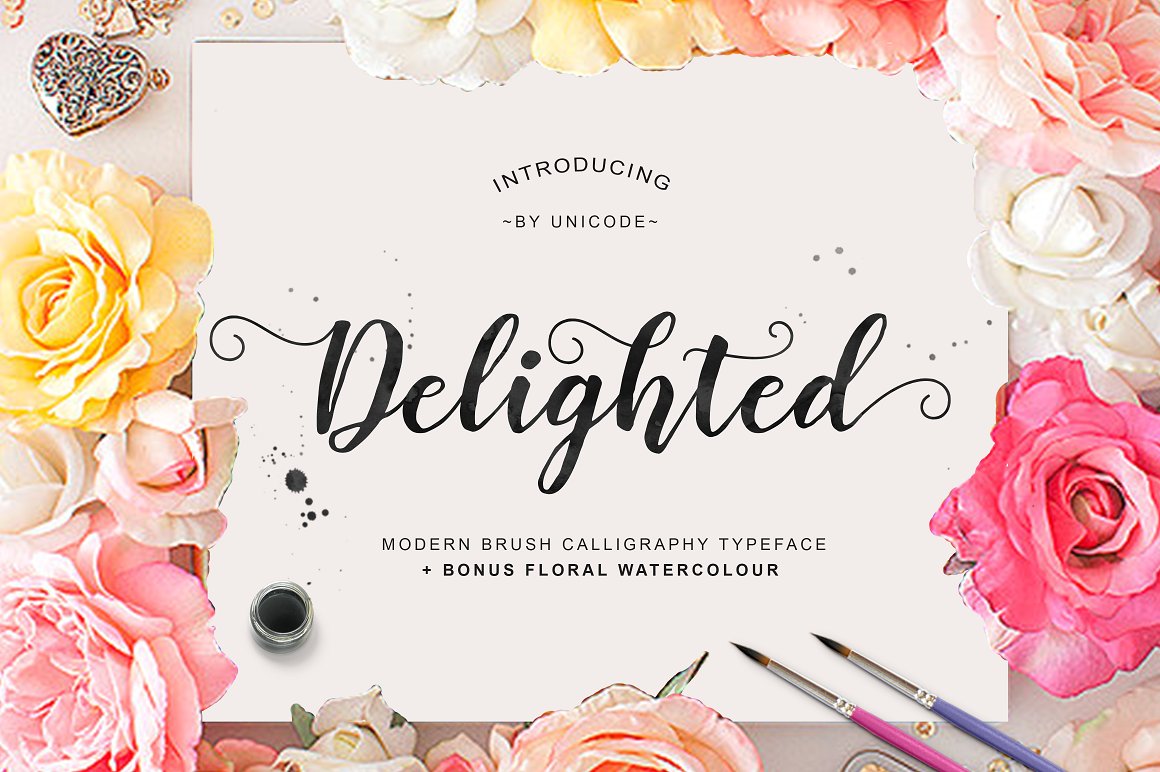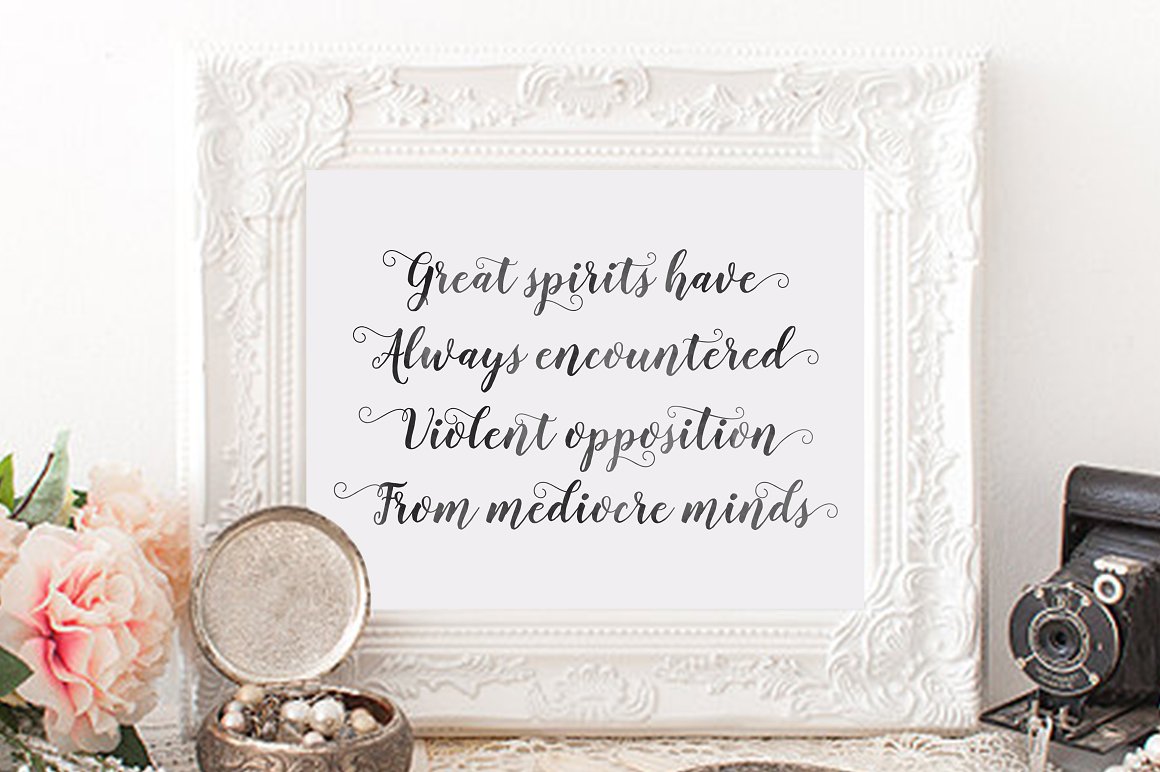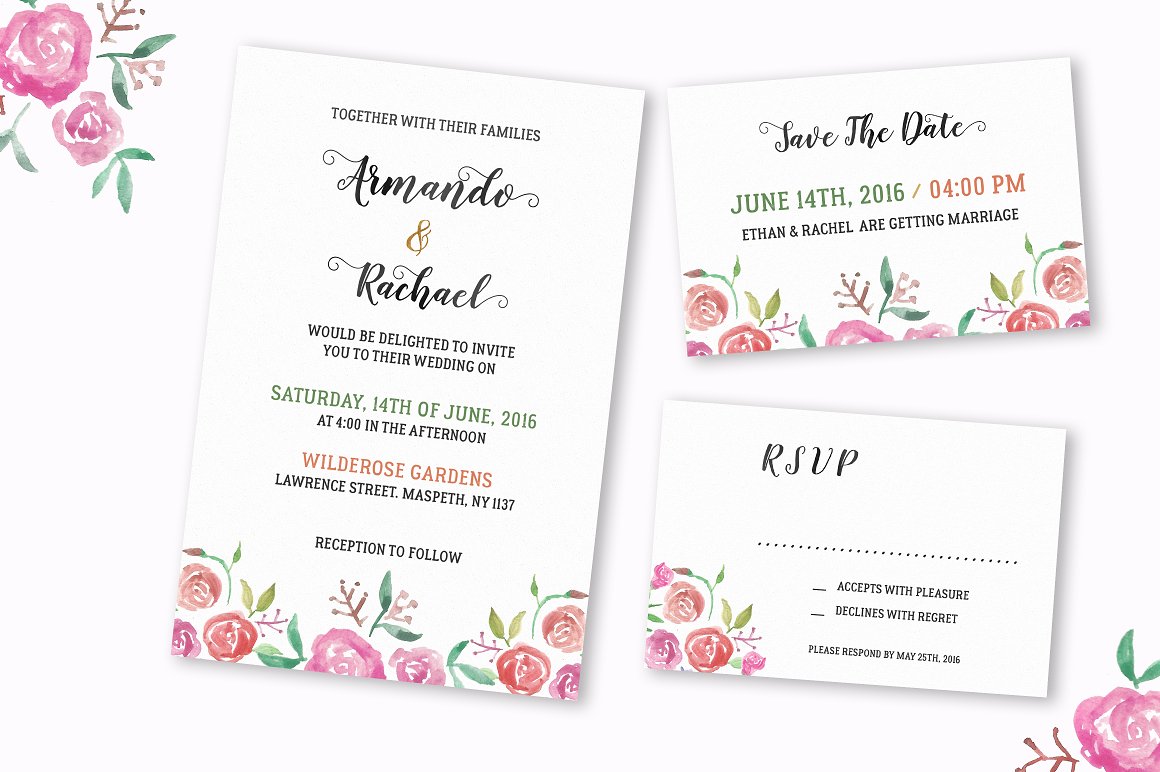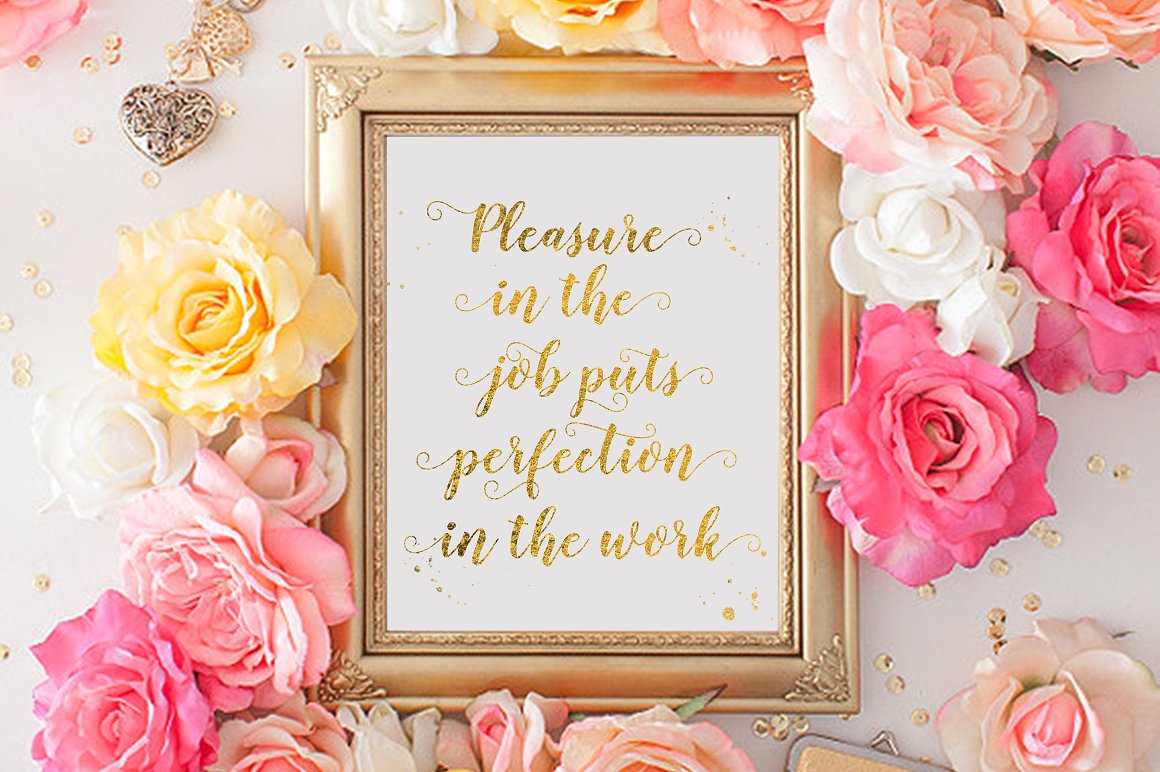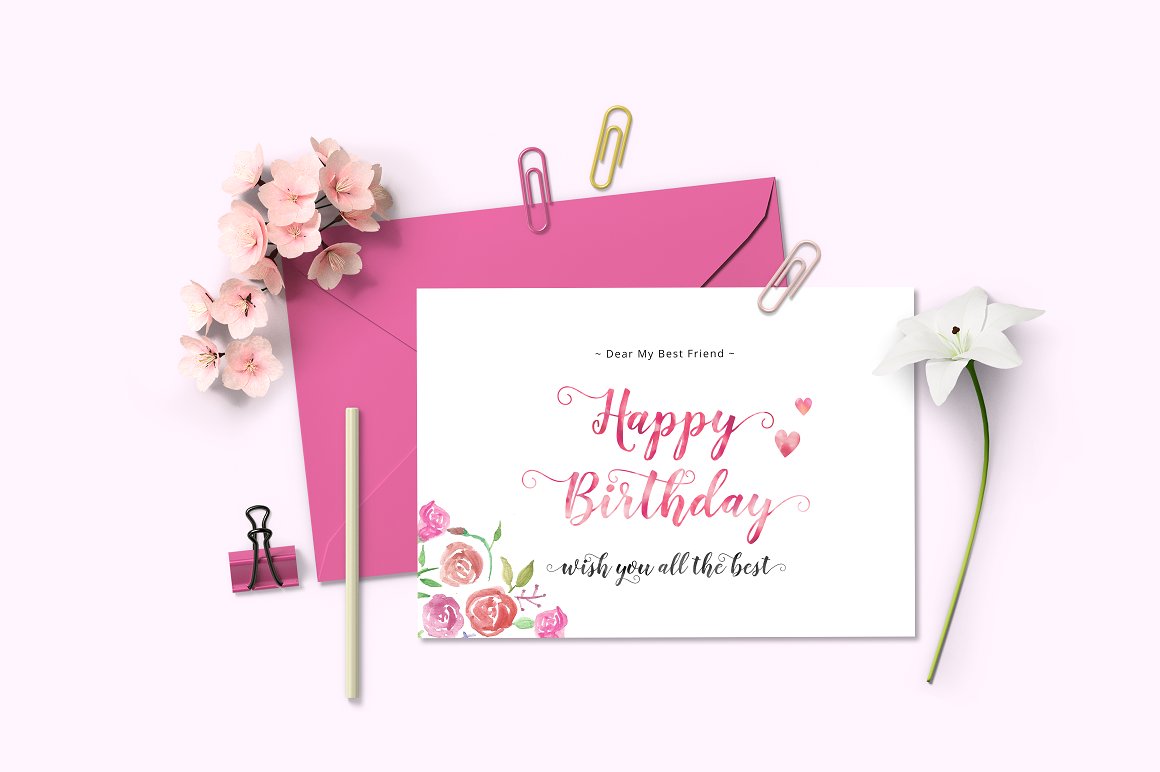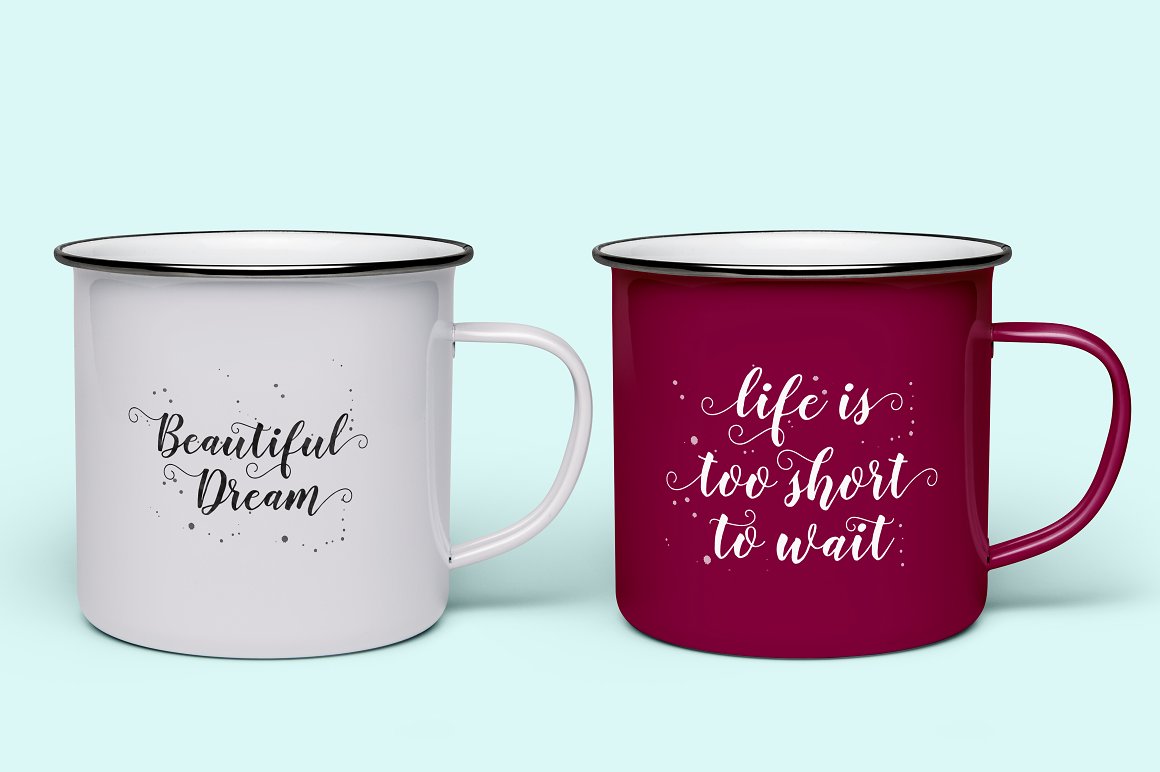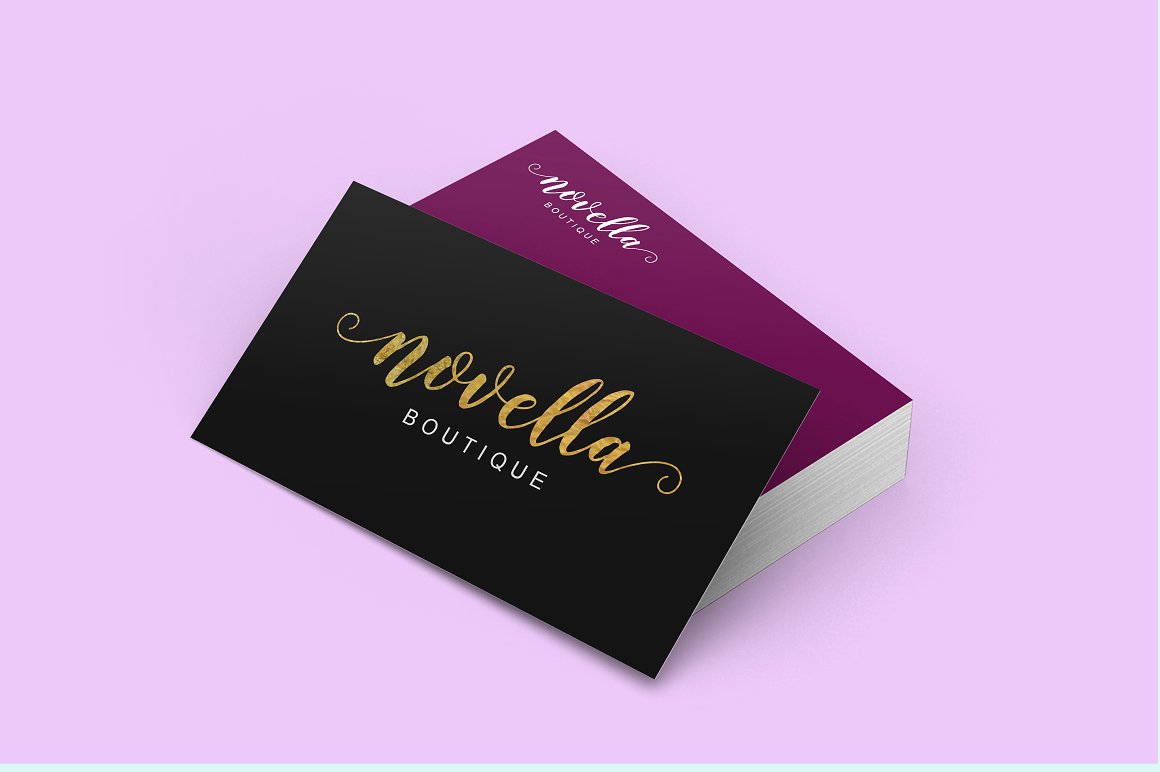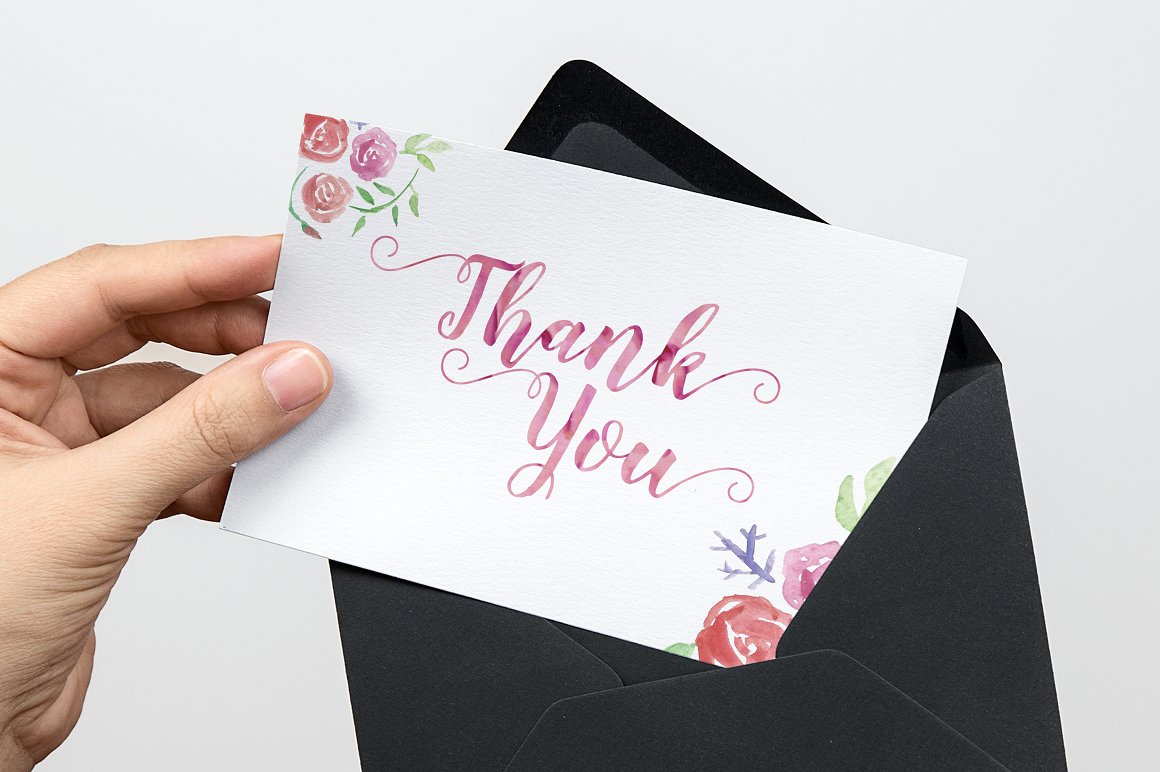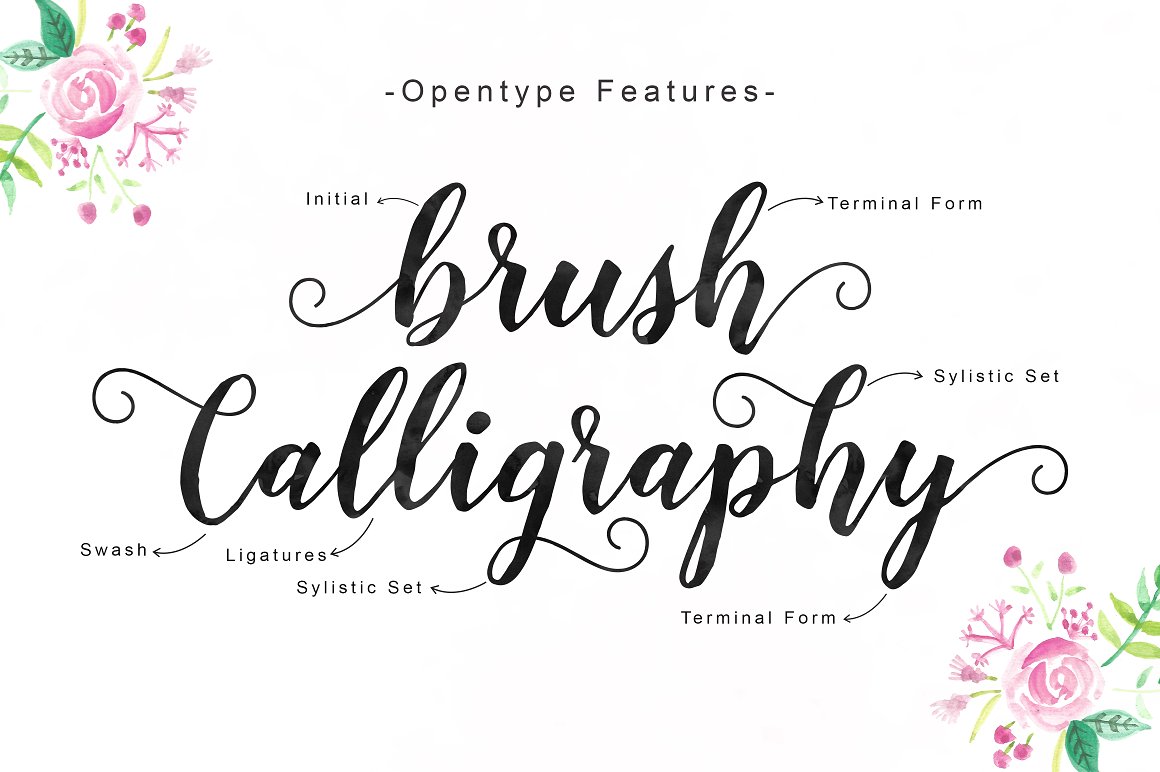
Delighted Font
About Delighted Font
Delighted is a fun handwritten script. It’s was created with a fine brush and features a modern calligraphic style.